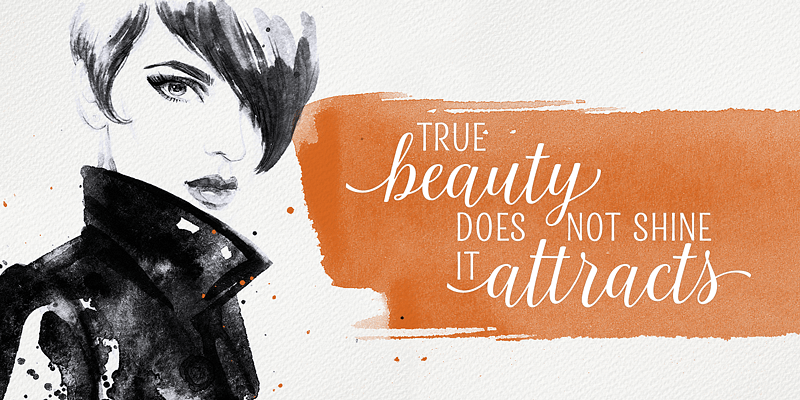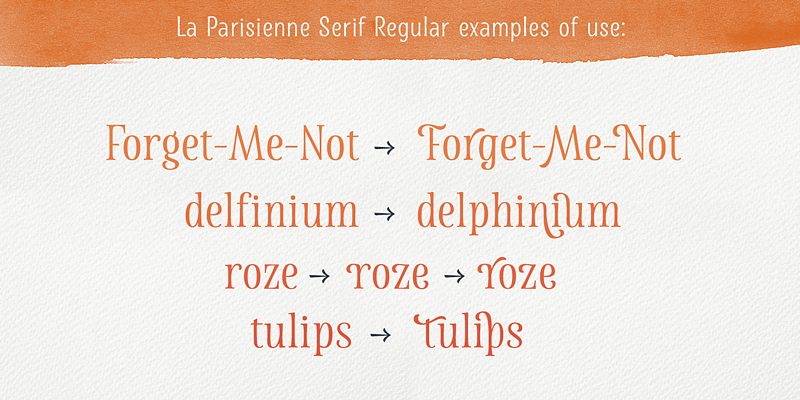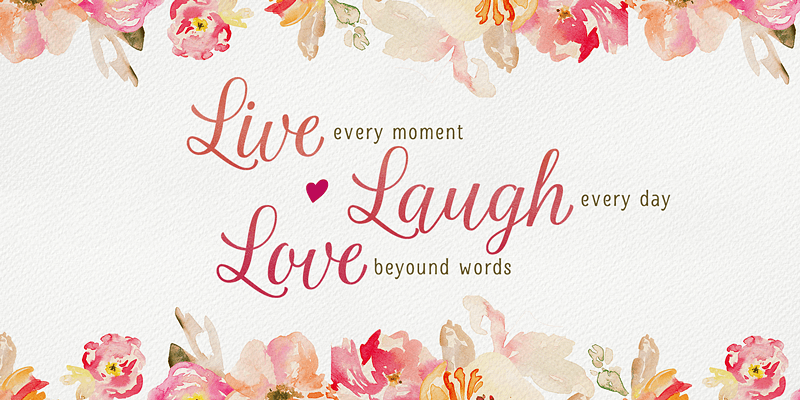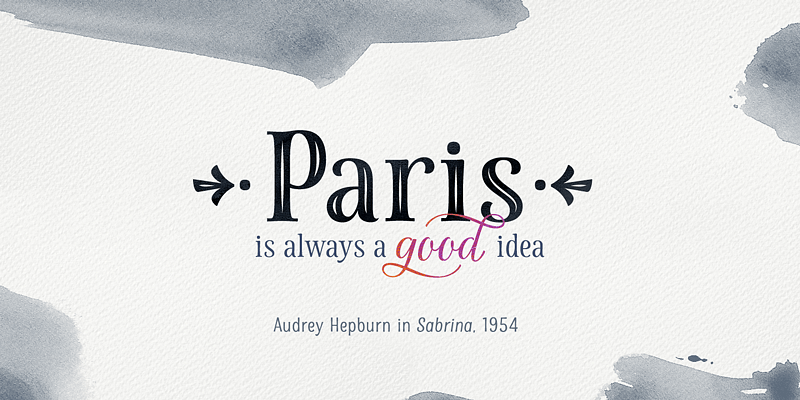
La Parisienne is a collection of fonts inspired by Paris avenues and boulevards full of inimitable french charm. The family is a mix of handlettering and classic forms. All fonts in collection work well together and while they share some of the features each of the fonts has its own character. The main fonts in the collection are full of open type features such as stylistic and contextual alternates and swashes.